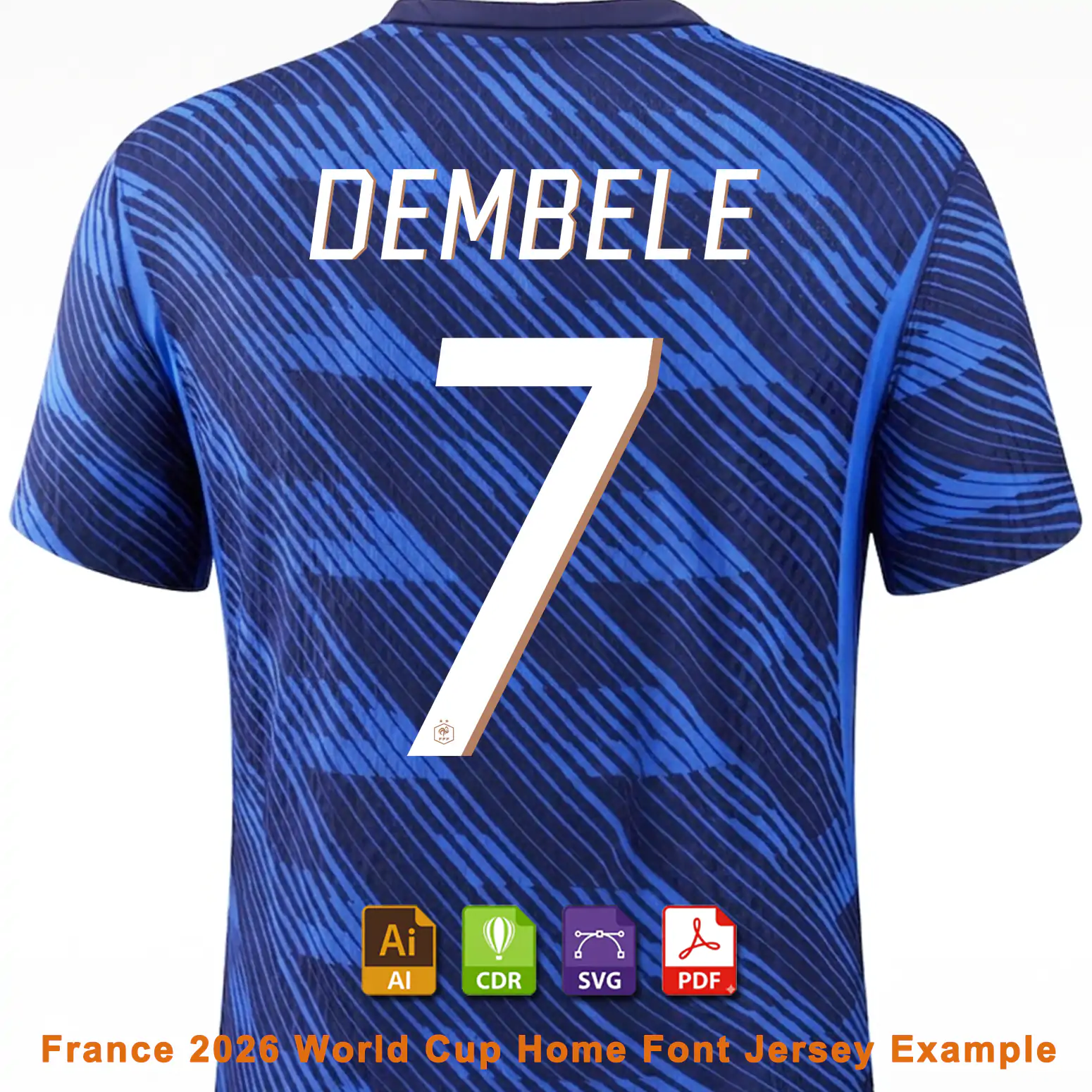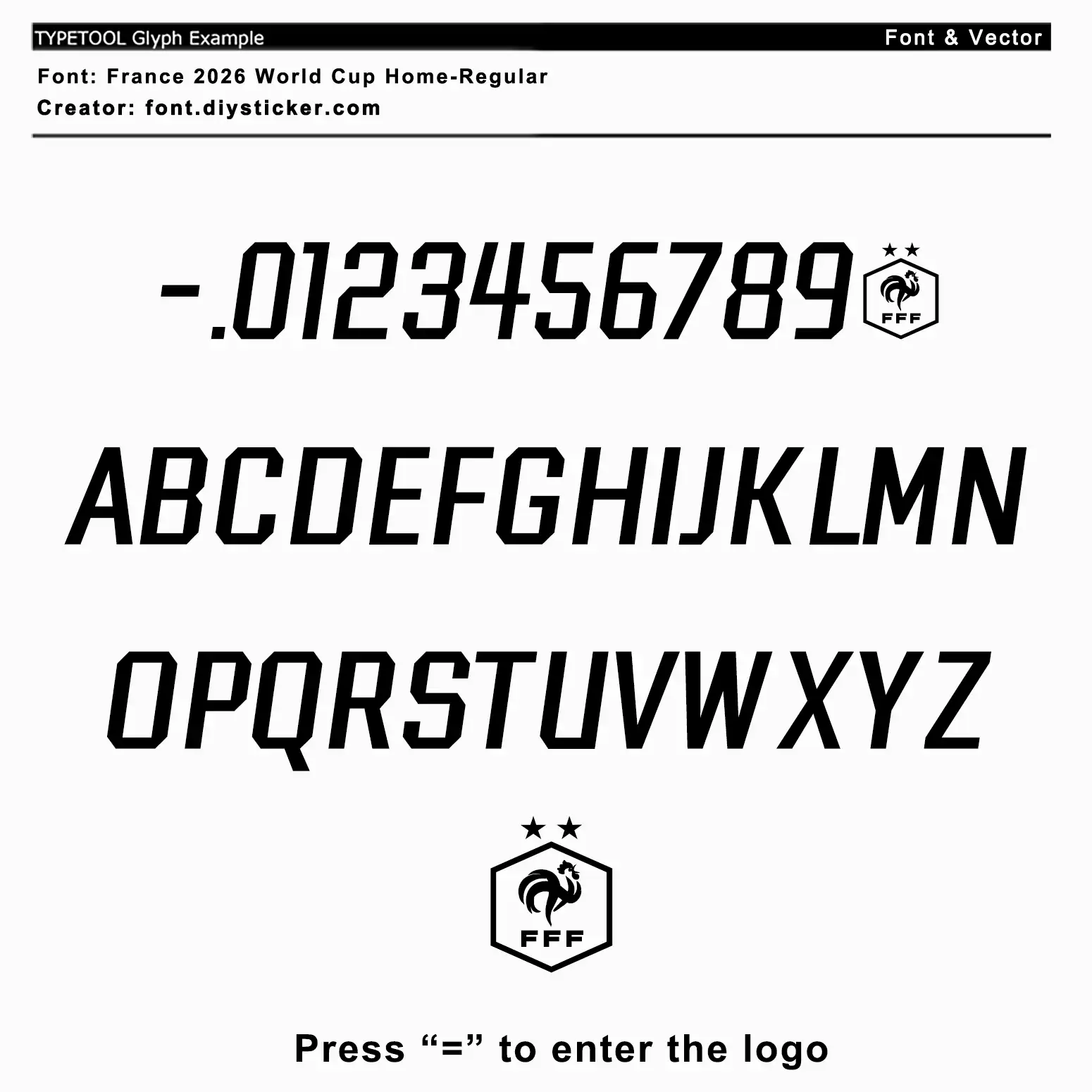
🇫🇷 Elevate Your Kit Design with France 2026 World Cup Home Font
Introducing the official France 2026 World Cup Home Font—the authentic typeface featured on the France national team’s 2026 home jersey. This comprehensive font bundle is designed for professional graphic designers, football fans, and kit makers, providing all file formats needed to create high-quality, custom football apparel and digital content.
- Full Character Set: Uppercase A-Z, numbers 0-9, punctuation, and the official FFF rooster logo glyph (type
=to insert).
✨ Design Highlights
This font mirrors the France 2026 World Cup Home Kit aesthetic with:
- Bold, modern sans-serif lettering optimized for maximum visibility on jerseys
- Sleek geometric numbering with authentic France team detailing
- Official FFF (French Football Federation) logo integration for genuine branding
- Dual-color compatibility (seamless use on light/dark jersey backgrounds)
- Crisp, sharp vectors that maintain quality at any scale